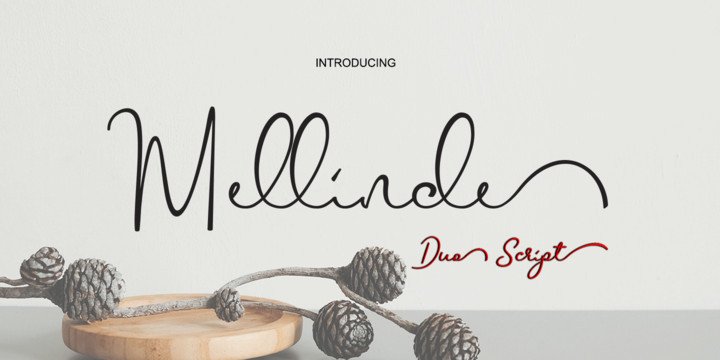
Mellinde Handwritten Font
Introducing the hand drawn signature script font “Mellinde Font”. Mellinde Handwritten Font was created with small businesses in mind! Mellinde is new, fresh, & modern with handmade calligraphy, decorative characters and dancing lineage! Wonderful for invitations like greeting cards, branding material, business cards, quotes, posters, and more!
It comes with 472 glyphs. Alternate characters are divided into several Open Type features such as Swash, Stylistic Sets, Stylistic Alternate, Contextual Alternate. Open Type features are accessible by using Open Type savvy programs such as Adobe Illustrator, Adobe InDesign, Adobe Photoshop Corel Draw X versions, and Microsoft Word. And this font has code PUA unicode (font with special code) so that all alternative characters can be easily accessed by craftsmen or designers.